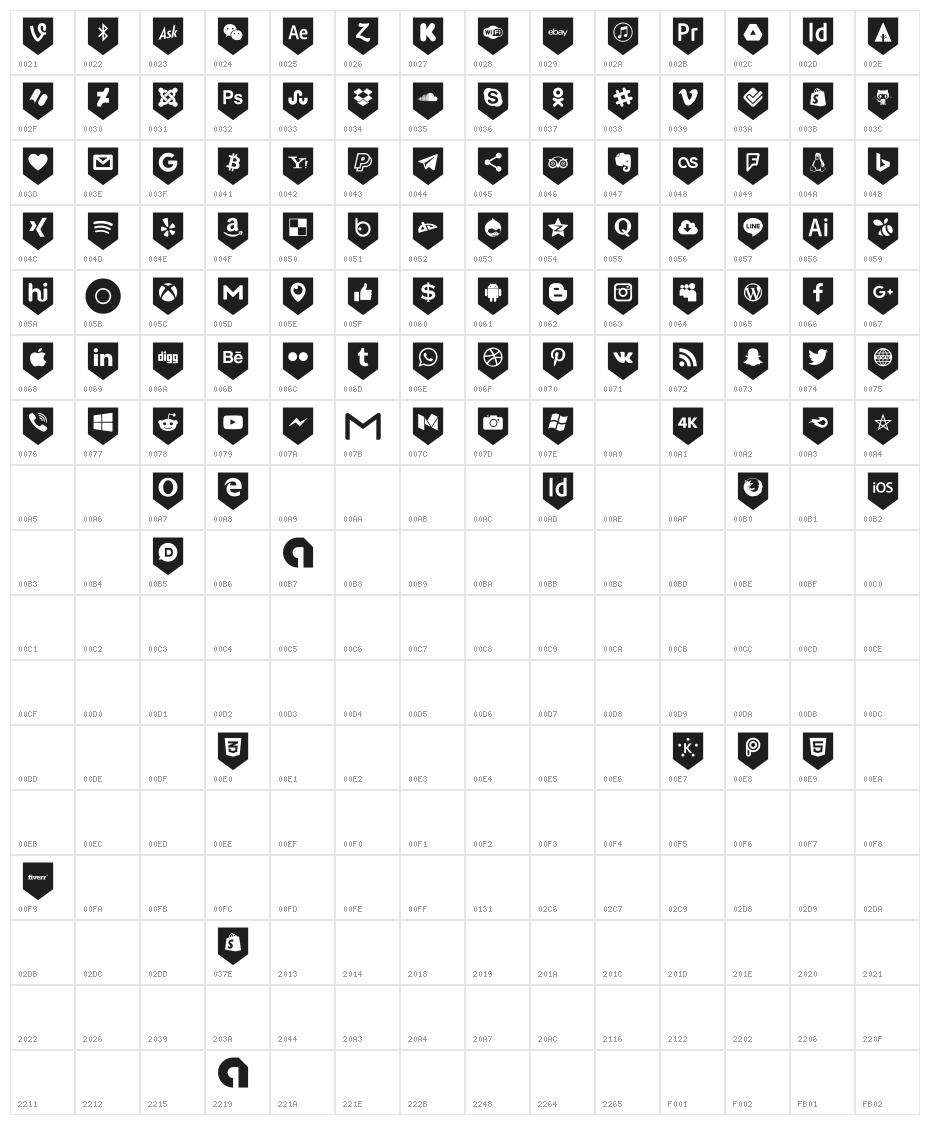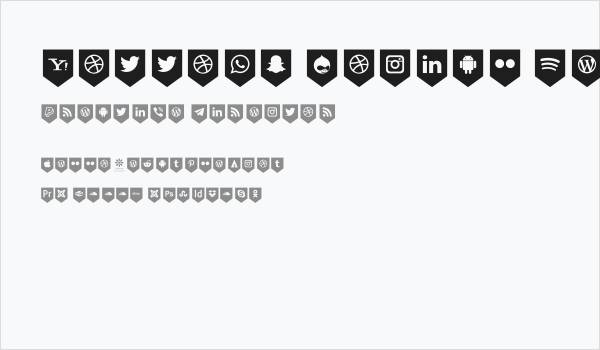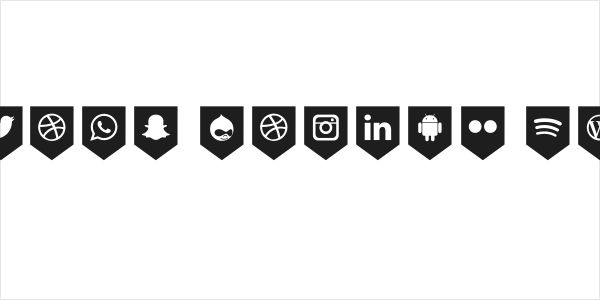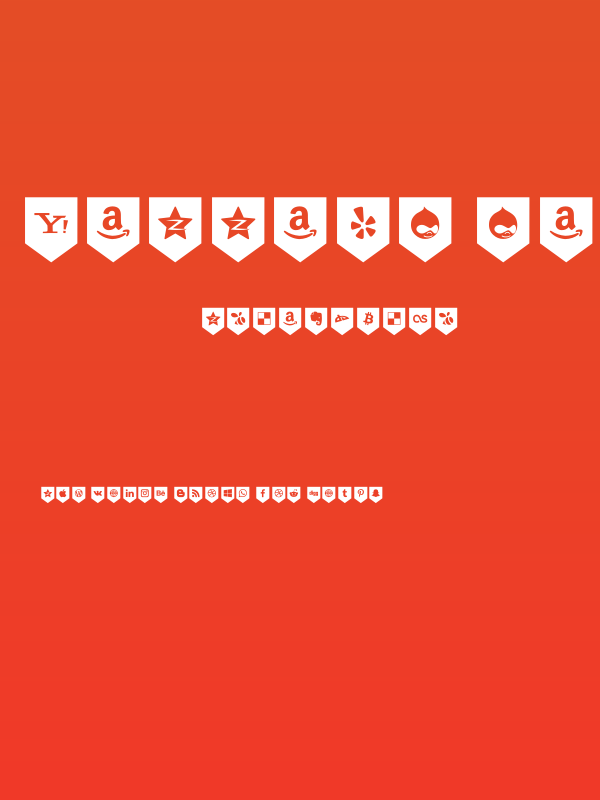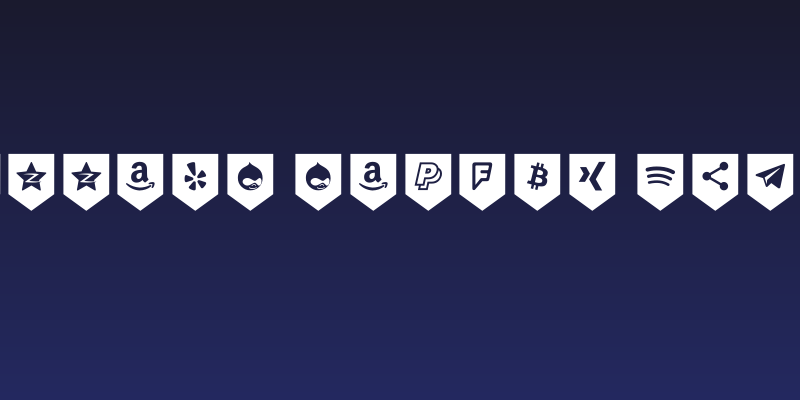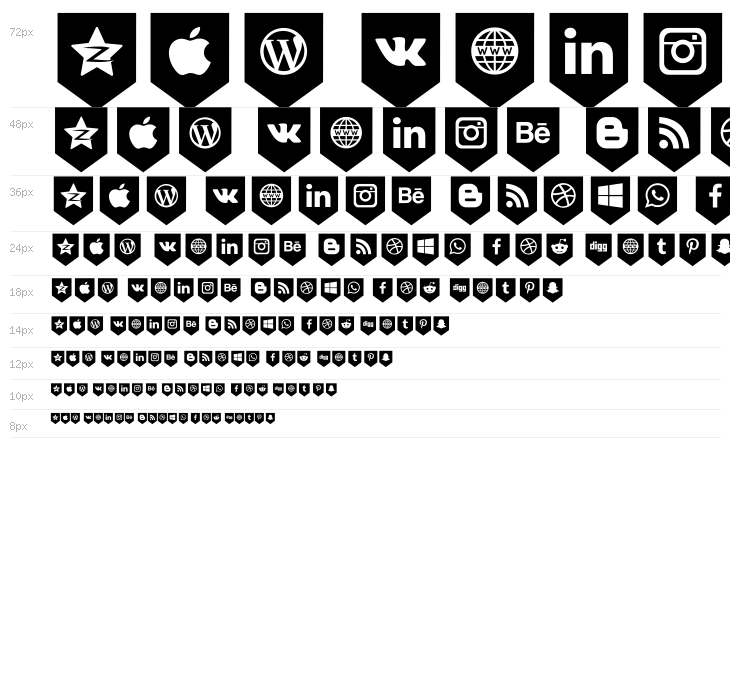
Bottons Social Media Font
Bottons Social Media Description
A collection of monochrome, geometric social media and service icons placed within solid black shield-shaped backgrounds. The icons are simplified, flat, and highly recognizable, designed for clarity and easy identification at small sizes.
| Overall Style | Modern, Minimalist |
| Use Case | Icons, UI elements, navigation, social links. |
| Proposed Projects | Website footers, app interfaces, digital portfolios, social media link sections, presentations. |